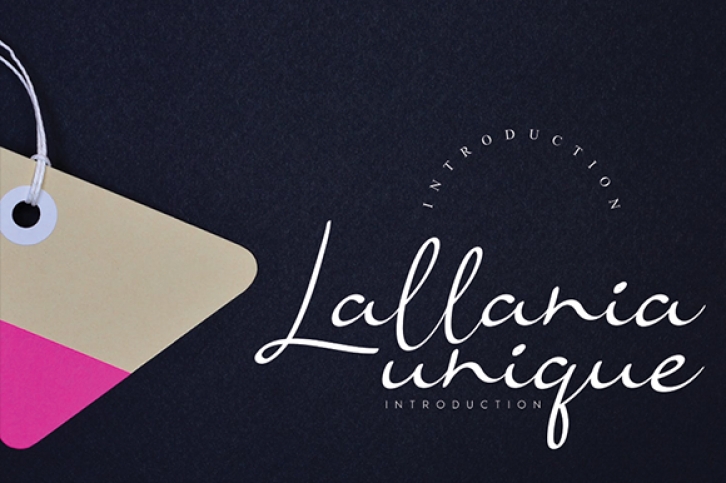
Lallania Unique is a flowing and unique handwritten font, designed with an incredibly timeless feel. Its relaxed style makes this font adept to both formal and non-formal contexts.